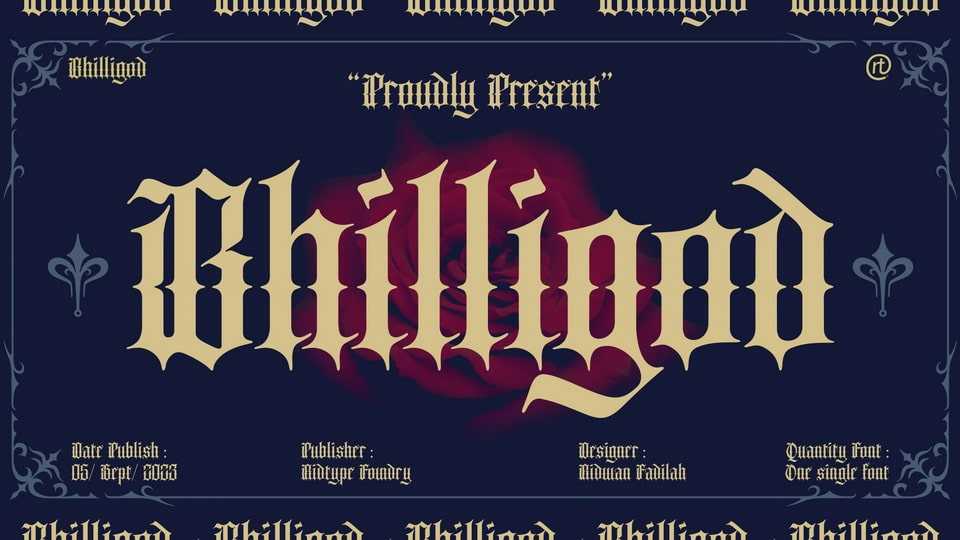
Download Bhilligod font, a blackletter typeface inspired by the flow of fine art, which seeks to present beautiful and fantastical paintings that are romantic in nature, such as history and tragedy.
Designer: Ridwan Fadilah